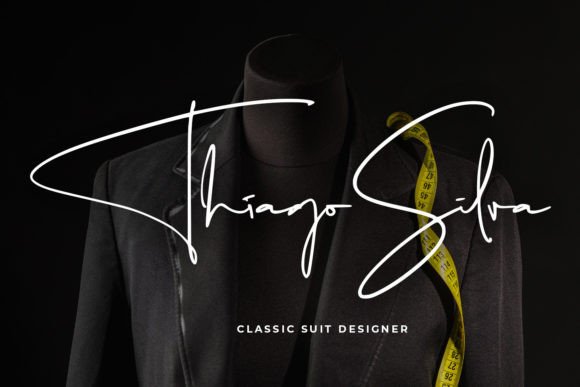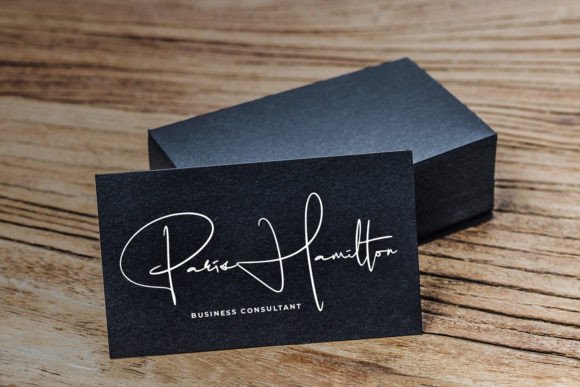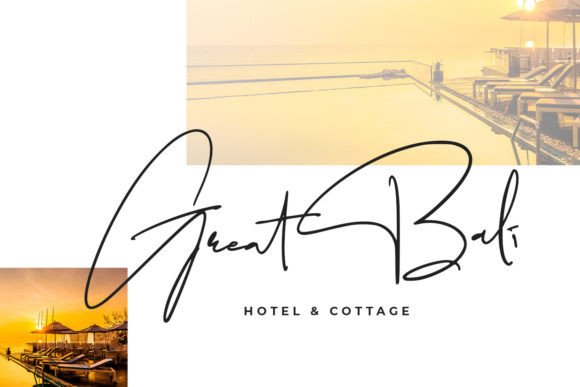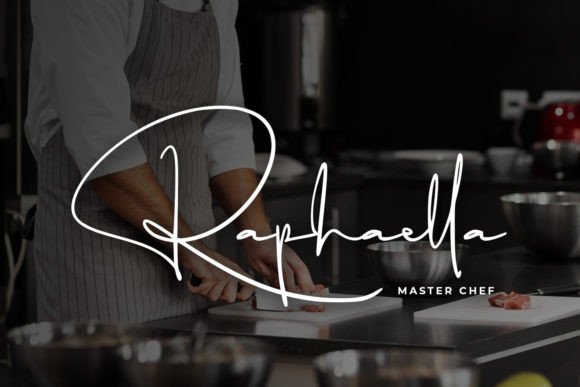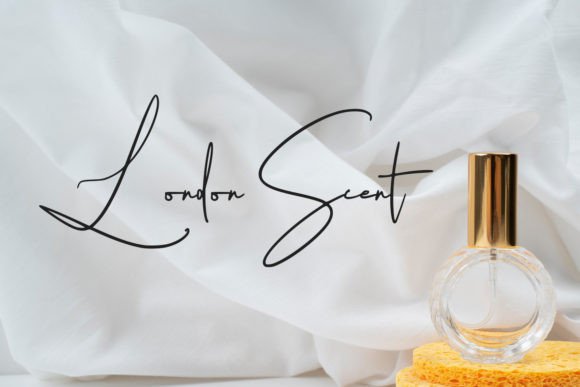
Introduction to Dellapena Font
Dellapena is a romantic and sweet calligraphy typeface with characters that dance along the baseline.
Dellapena Font offers exceptional quality and versatility, making it a valuable addition to your design toolkit. Whether you’re creating for personal projects or commercial use, Dellapena Font delivers professional results.